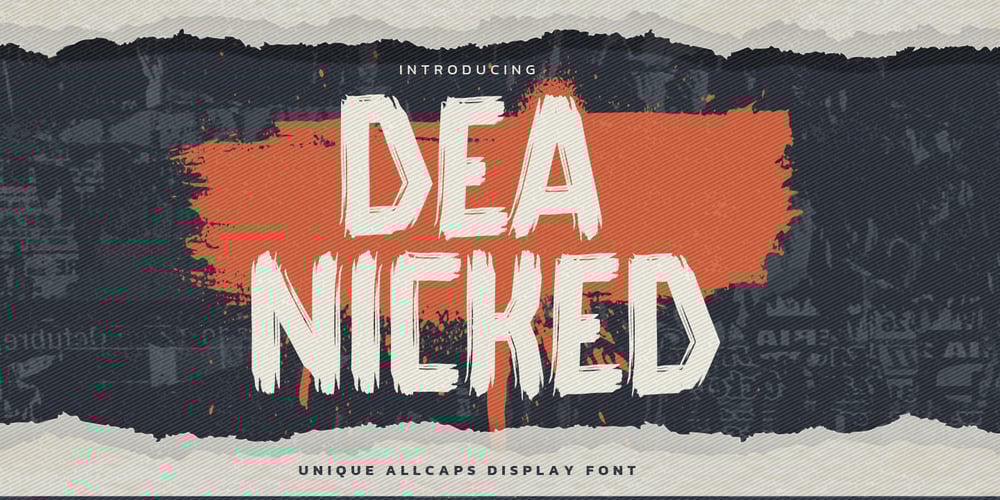
Deanicked Font Family was designed by Abdul Malik Wisnu, Anang Fibriyanto and published by Gassstype. Deanicked contains 1 styles and family package options. Here comes our new font Deanicked this is a Unique All Caps Display Font that is written casually and quickly. This is Textured Natural Style and Classy Style. This font are handmade with brushes on Procreate. Then crafted carefully drawn into vector format.this font is great for your creative projects such as watermark on photography, and perfect for logos & branding, photography, invitation, watermark,advertisements,product designs, stationery, wedding designs,label ,product packaging, special events or anything that need handwritting taste.Deanicked a natural handwritten feel. This handmade font will make your design has a beautiful natural touch for each details. It is perfect for any design project as Invitation,logo, book cover, craft or any design purposes.